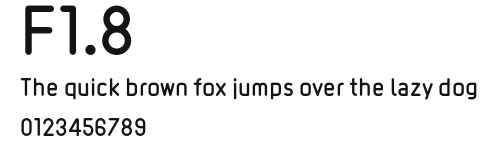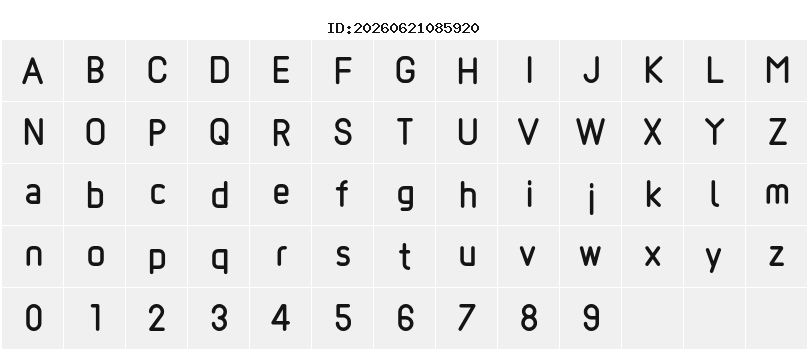
• Font Name: F1.8
• Full Font Name: F1.8 Regular
• Designer: Sora Sagano
• Manufacturer: Sora Sagano
About F1.8.otf
F1.8.otf is a modern, elegant sans-serif font designed for ultimate readability and visual harmony. Perfect for branding, headlines, web design, and print materials.